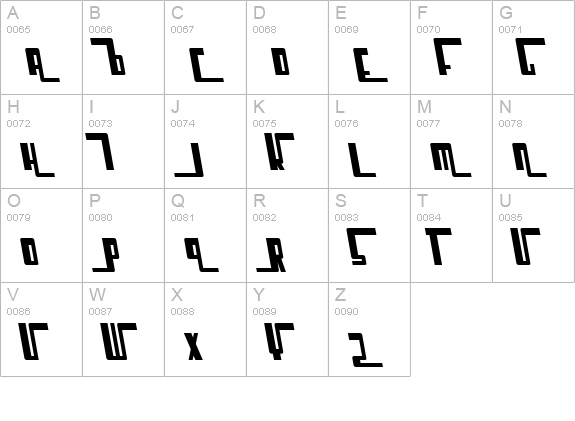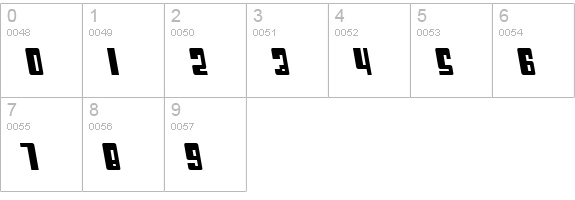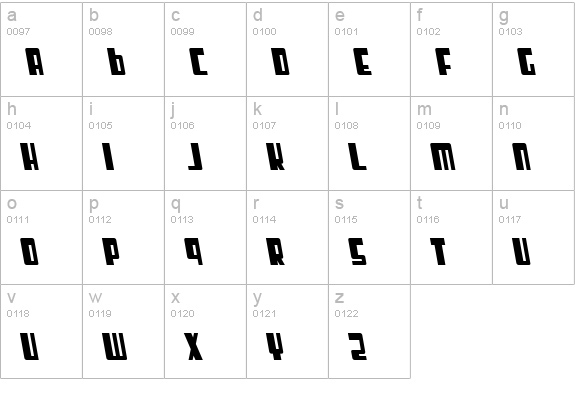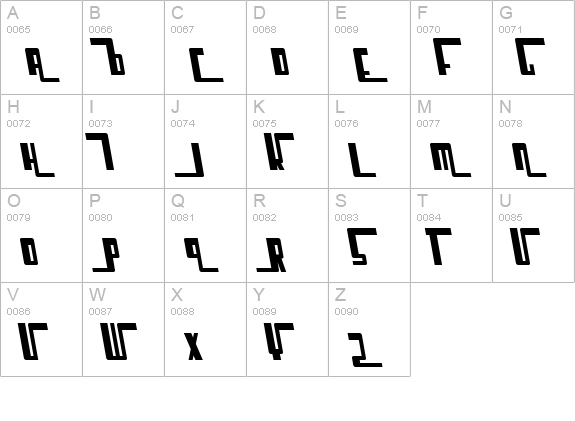
Cosmic Age Bold Italic is a strong, high-contrast, italic variant in the Cosmic typeface family \xE2\x80\x94 well suited to headlines, attention-grabbing titles, and strong calls-to-action.
Introducing Cosmic Age Bold Italic font, a striking and modern typeface that will take your design projects to new cosmic heights. With its bold yet elegant design, this font exudes a sense of futuristic style and sophistication. The sleek curves and sharp angles of each letter create a dynamic and eye-catching look that is perfect for a variety of creative applications. Whether you are working on branding, advertising, editorial design, or any other project that requires a touch of cosmic flair, Cosmic Age Bold Italic font is sure to make a bold statement. Its unique blend of boldness and elegance will captivate your audience and leave a lasting impression. And the best part? Cosmic Age Bold Italic font is completely free to download at FontsMarket.com. So don't wait any longer - elevate your designs with this stunning typeface today.